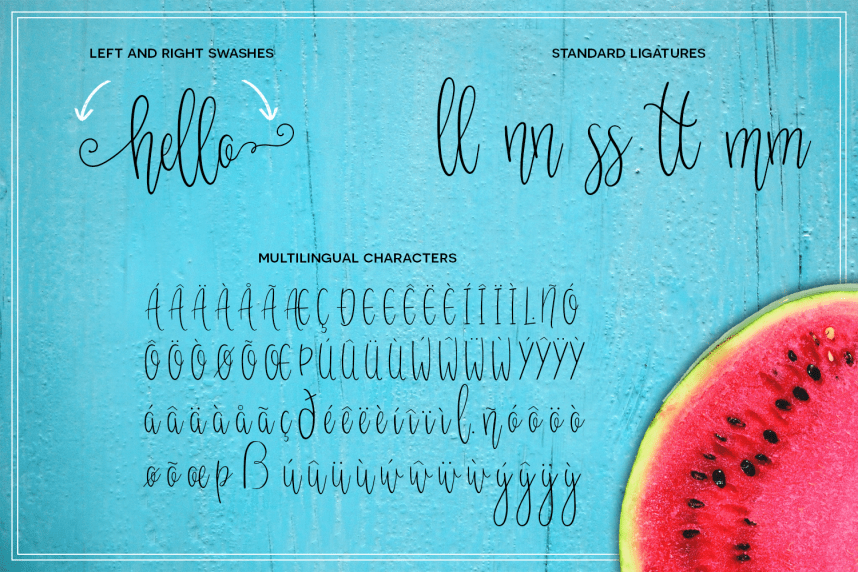
Melonade Script Font
Introducing the new ‘Melonade’ handwritten script font. It is was designed and shares by Kirsten Louise Design. Melonade is a tall, handwritten script font which comes with both left and right swashes to add to the regular version. Melonade would perfect for photography, watermark, social media posts, advertisements, logos & branding, invitation, product designs, label, stationery, wedding designs, product packaging, special events or anything that need handwriting taste.